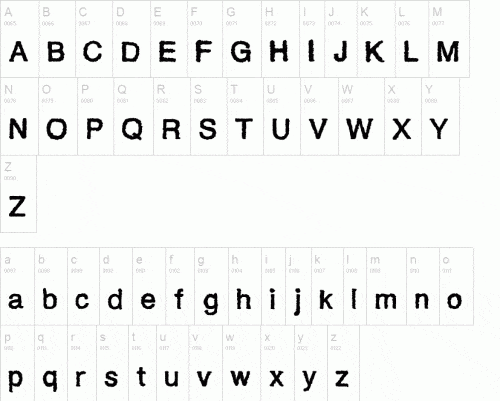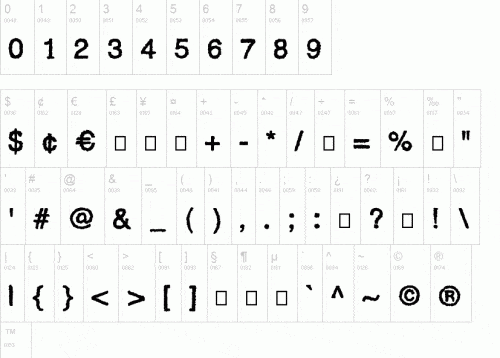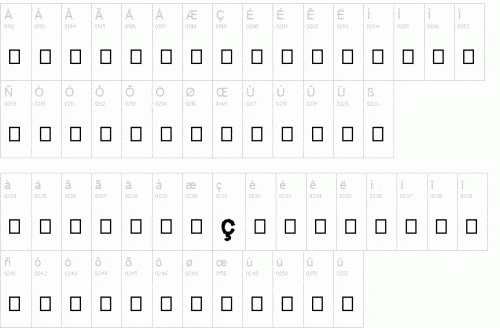
Are you up in smoke? Do you need some cloud-ish typo to improve your designs? Then CloudySmoke is the perfect font for you! Available for non-commercial use.